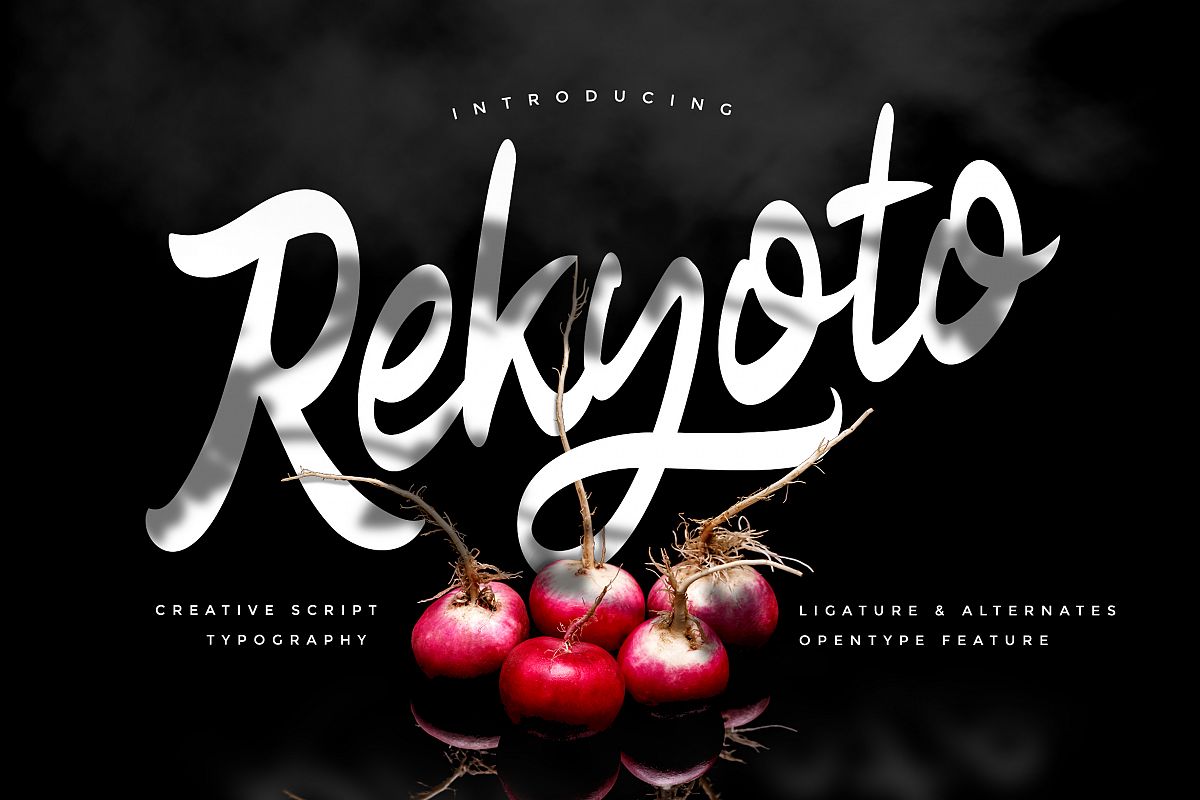
Crafters and graphic designers, if you're looking for the best script fonts, then you're in the right place! We have an incredible variety of the best script typefaces, elegant scripts, and of course, bundles! That fantastic assortment includes calligraphy, handwritten, brush, graffiti, and monoline script font options, and they're all truly amazing. Oh, and we have the biggest assortment of free script fonts you've probably ever seen too!
Popular and Creative Ways To Use Script Style Fonts
The number of ways that scripts are used is truly amazing to think about! Many businesses use these fonts for their branding, advertising, logos, signage, marketing materials, websites, and more. They are highly popular with wedding businesses, fashion and design industries, bloggers, and the like. Even businesses that you wouldn't think of are using these fonts for menus, sales brochures, etc. When you use a font that has that cursive or handwritten appearance, you can create an element of elegance, upscale, or a premium product. An elegant script style font is great for this!
Beautiful handwriting fonts are numerous here on Font Bundles and make a fantastic choice for feminine brands, graphic design projects, fun, and flirty t-shirt designs, and of course, wedding products and designs. Crafters and graphic designers love using handwriting fonts since they can give you a close match to the way a person would actually write with a pen and paper, and often are just that, only digitized! Crafters and graphic designers loving using these script style fonts for wood signs, t-shirt graphics, scrapbooking, graphic designs, card making, and more!
While you're browsing, you'll also see some of the best calligraphy fonts out there. These unique fonts are often elegant, detailed, and filled with all the glyphs, flourishes, and alternates a graphic designer could ever want! Of course, there are a ton of different options if those extras are your jam...tons and tons!
Other Fantastic Script Font Styles
Of course, we can't forget other types of fonts like graffiti, monoline, and brush styles. These fantastic fonts have their place too! Smooth and clean, monoline fonts are great for farmhouse style designs, simple and minimalistic styles, and more. Graffiti is so cool, and with a font styled after this art form, you can get some pretty rad looks! Brush-style fonts are made using a brush of some type, either physical or digital, and have that truly handwritten look that shows you just how the brush dips and moves with pressure. Truly amazing!
Script typefaces are incredibly versatile, and with the assortment of options for sale, plus our free script style fonts, you'll find more than you could ever need! Of course, that doesn't stop us, font hoarders, from always grabbing new and awesome fonts for our collections....after all, can you ever truly have too many fonts?!?